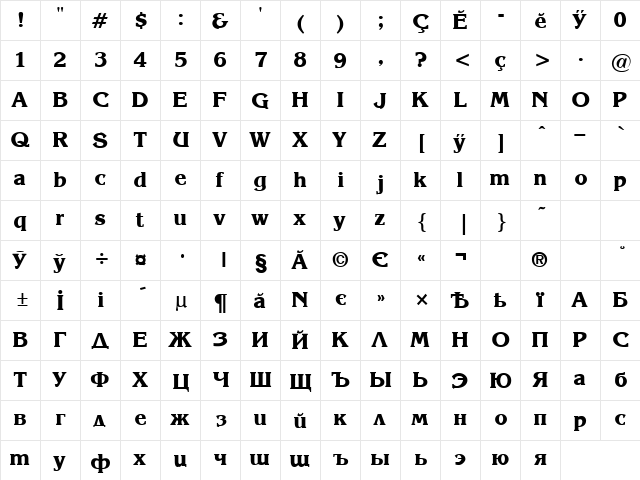
Korinna Bold Chu CNP Regular
Design Context for Korinna Bold Chu CNP Typeface
Korinna Bold Chu CNP takes a measured approach to typography — its balanced proportions and neutral character make it a reliable workhorse for both digital and print work. The heavy weight commands attention and anchors typographic hierarchies.